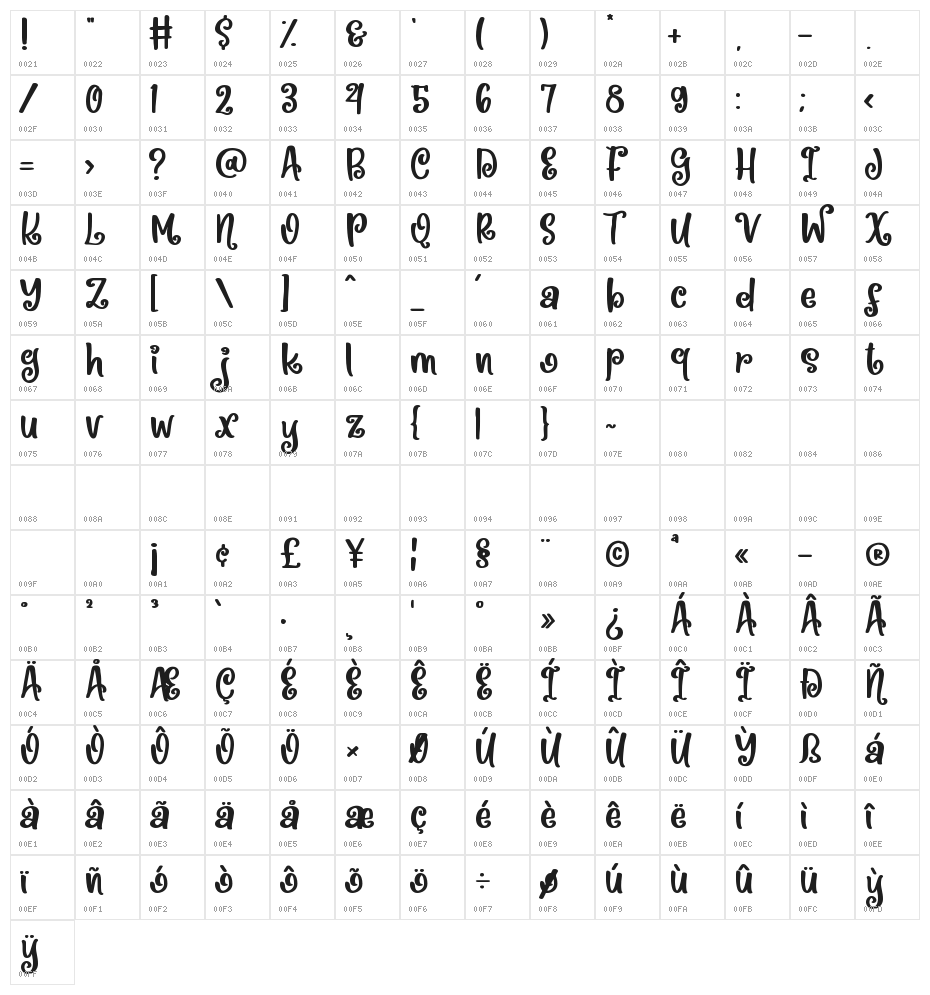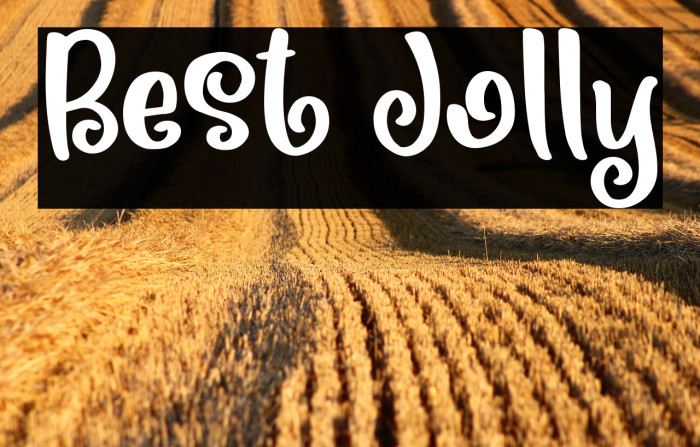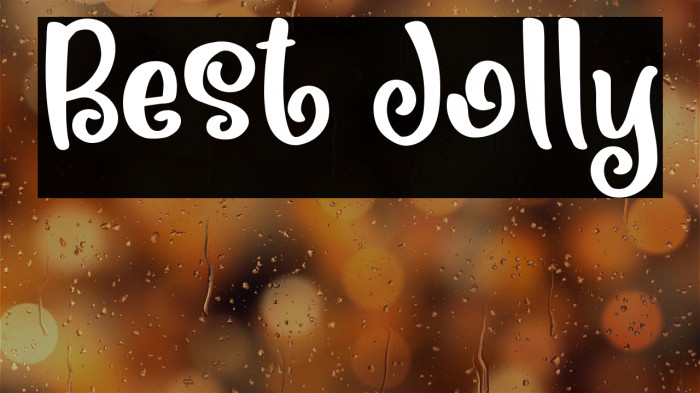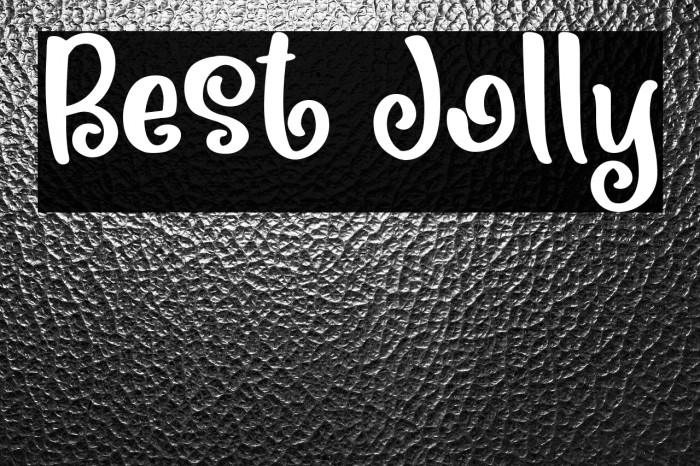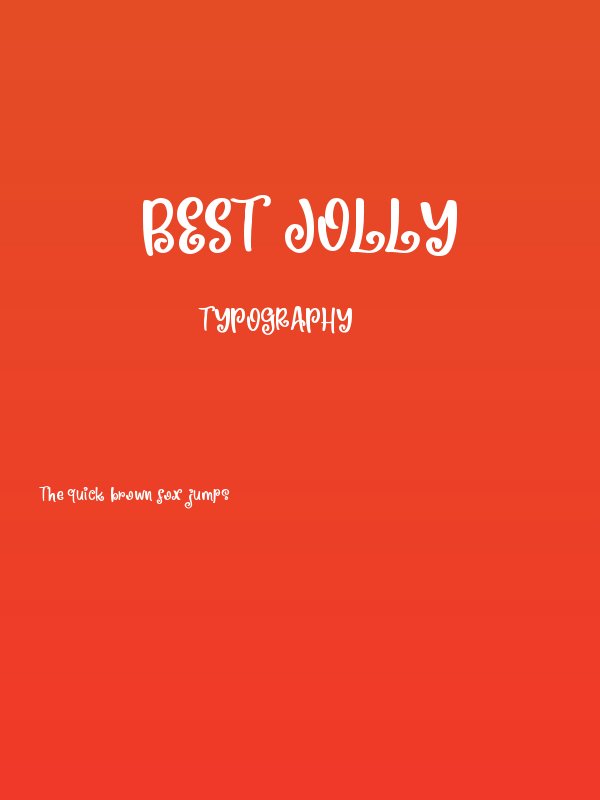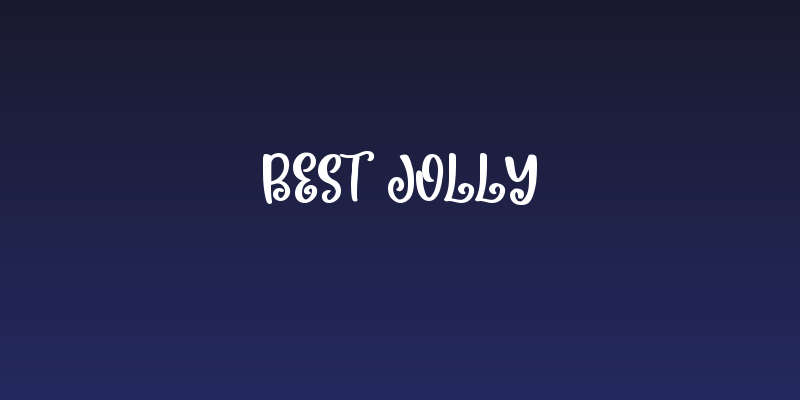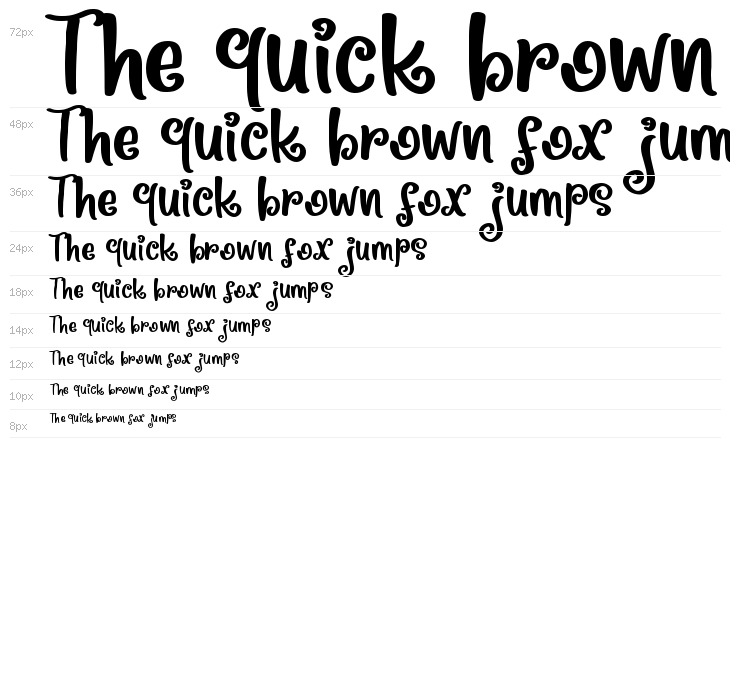
Best Jolly Font
Best Jolly Description
This playful and whimsical font features bold, rounded characters with a lively and energetic style. The letters exhibit a hand-drawn quality, with each character having unique, curly flourishes that add a sense of fun and creativity. The uppercase and lowercase letters maintain a consistent style, with the lowercase letters slightly more compact. Numbers and special characters follow the same playful theme, making them ideal for projects that require a touch of personality and charm. The font's overall appearance is both approachable and dynamic, perfect for capturing attention.